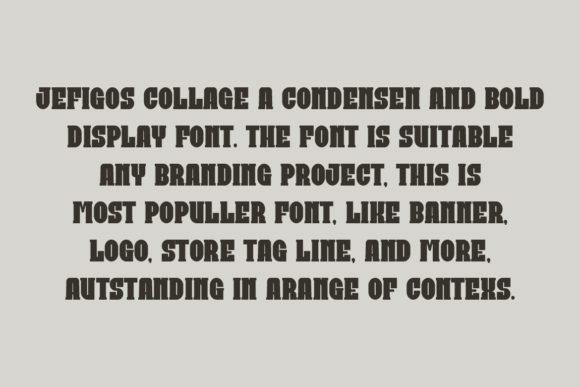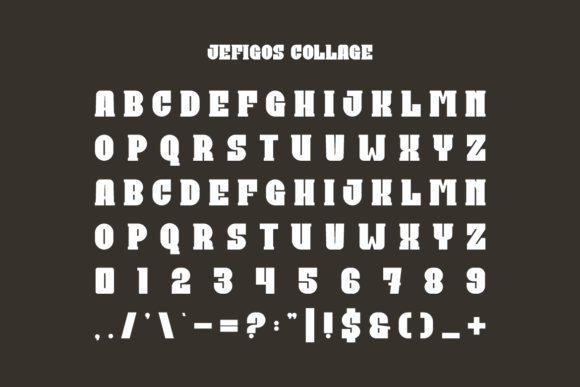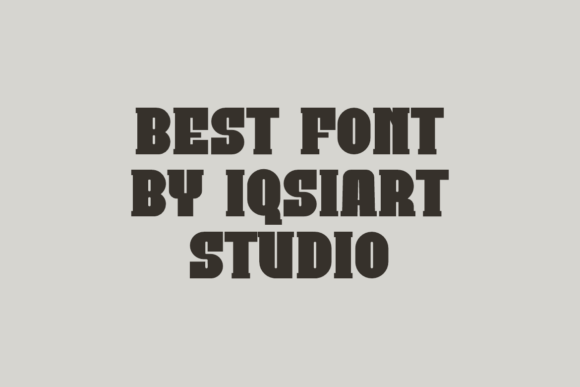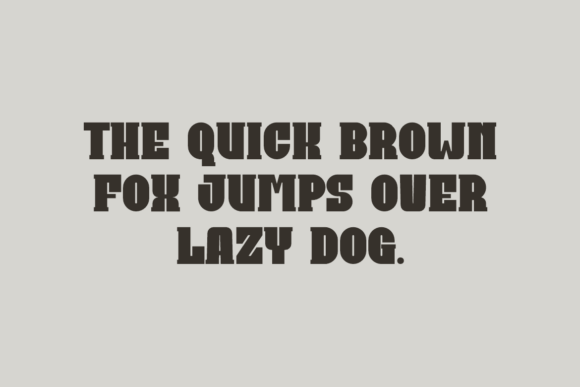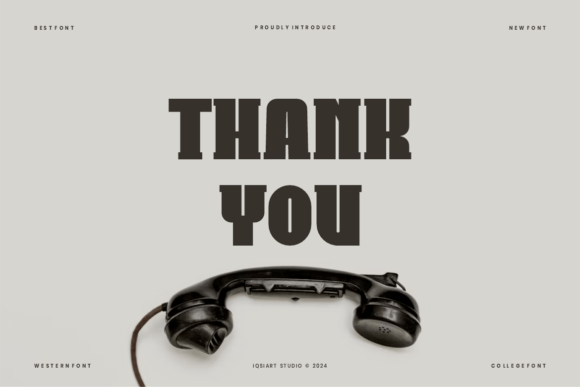
Introduction to Jefigos Collage Font Font
Fonts play a crucial role in design, and the Jefigos Collage Font font is a typeface that brings both character and versatility to any project. Whether you’re working on a branding project, a website, or a print design, the Jefigos Collage Font font offers a unique style that can elevate your work.
Jefigos Collage is a bold, western-style font that has a strong and striking look.
Its design features thick, sharp letters with a classic, vintage feel, perfect for creating attention-grabbing titles or logos .
Key Features of Jefigos Collage Font Font
Why Choose Jefigos Collage Font Font?
The Jefigos Collage Font font is more than just a typeface – it’s a design tool that helps you communicate your message with style and clarity. Its unique character set and versatile design make it suitable for a wide range of applications, from elegant invitations to bold headlines.
With its carefully crafted letterforms and balanced proportions, the Jefigos Collage Font font ensures readability and visual appeal across all mediums.
What makes Jefigos Collage Font font special?
The Jefigos Collage Font font stands out with its unique design, exceptional readability, and versatility across various design applications.